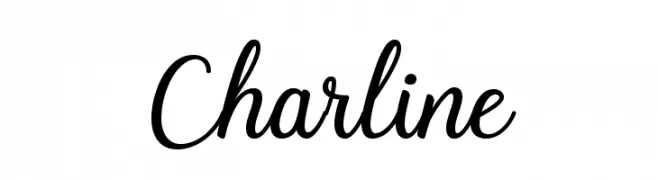
A versatile sans-serif font with both decorative and bold variations.
A dynamic and flowing script font with elegant curves and smooth transitions.
A bold, geometric font inspired by classic mechanical flip scoreboards.
A playful font with letters inside hand trucks, suggesting movement.
A playful, bold font with a retro vibe and rounded characters.
A bold, modern font with angular serifs and high contrast strokes.
A flowing, cursive font with elegant loops and smooth transitions.
A bold, pixelated font with a retro-futuristic, grid-like design.
A flowing, cursive font with elegant loops and smooth transitions.
A bold, geometric font with sharp angles and a modern aesthetic.